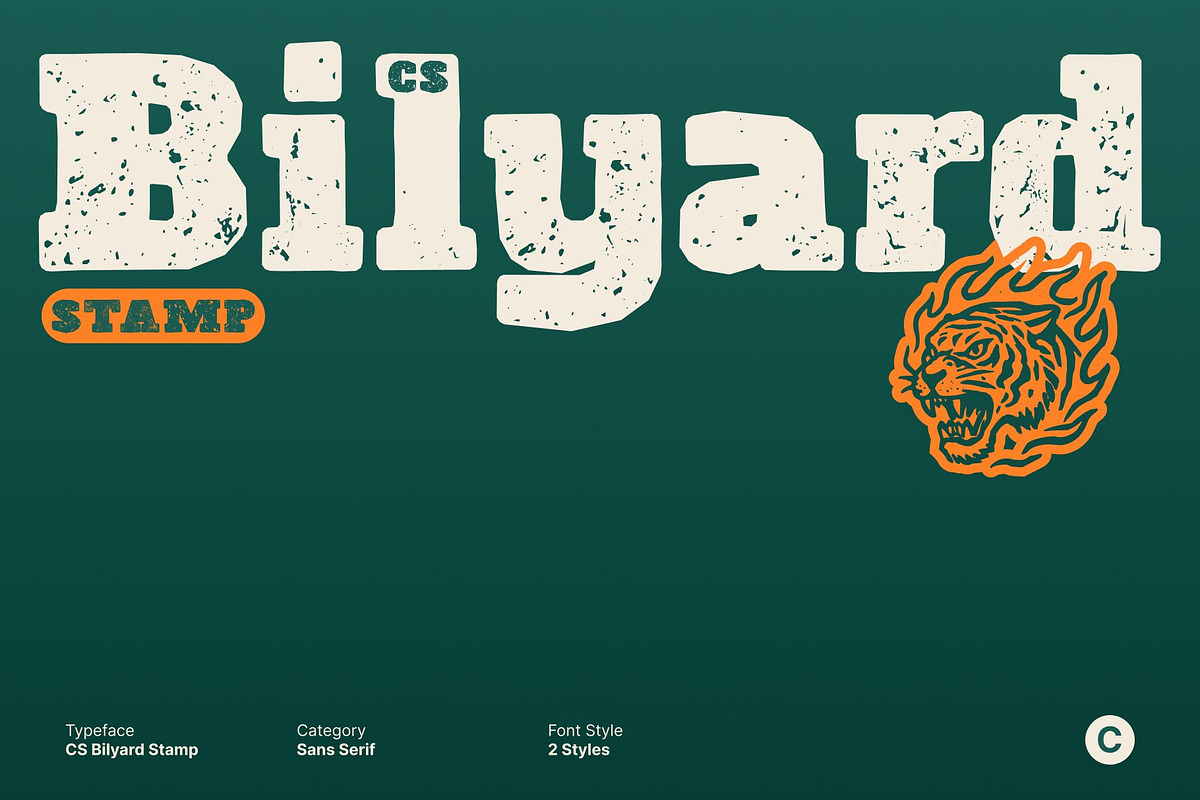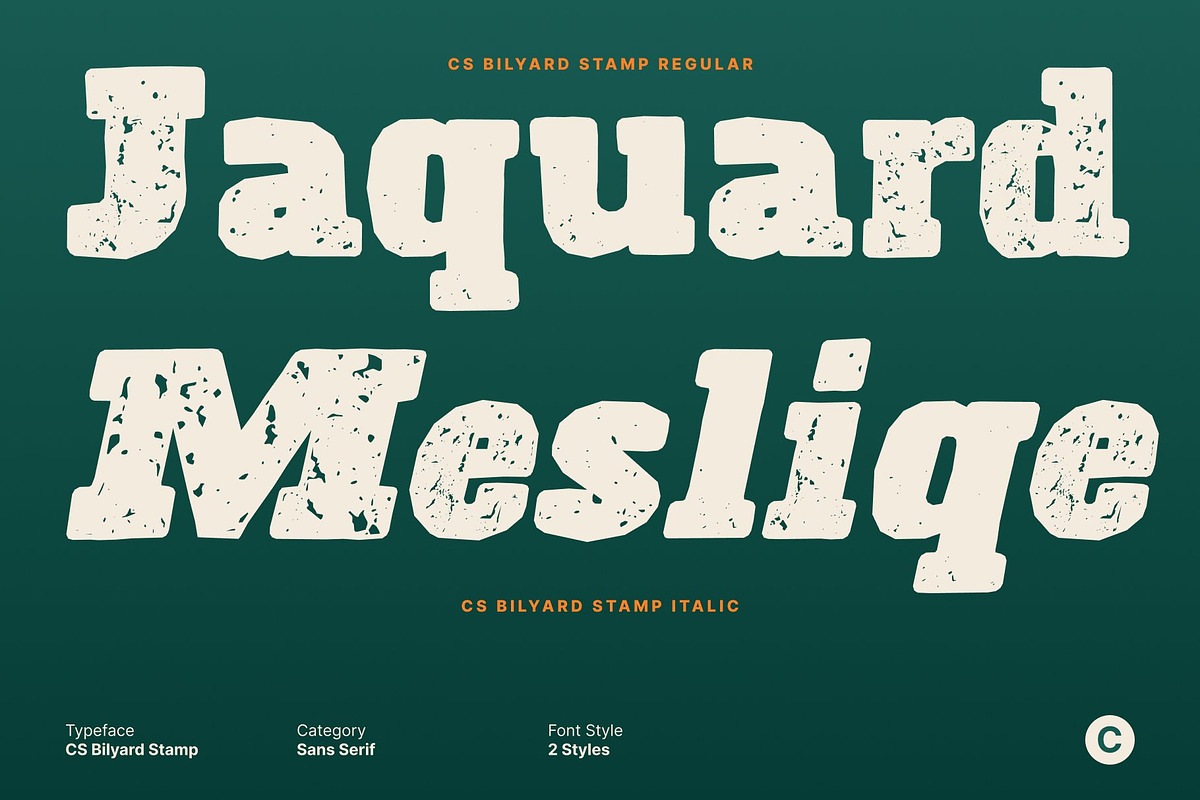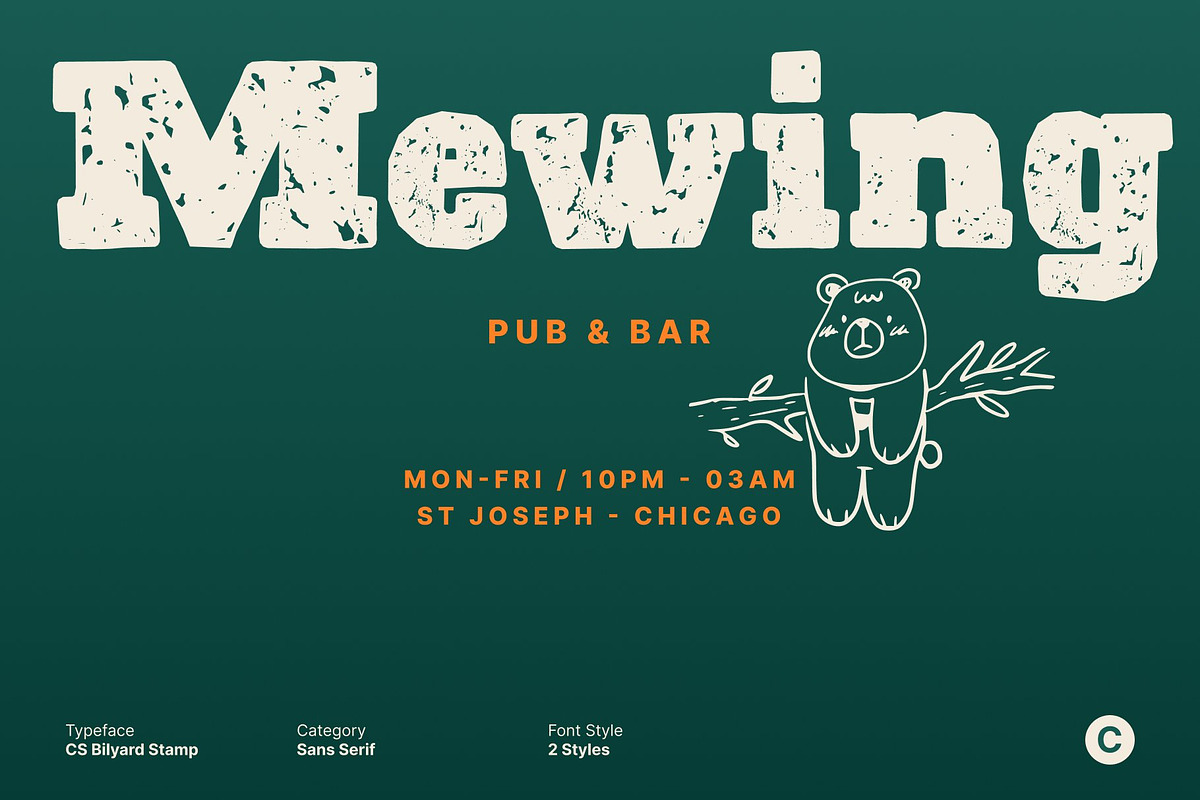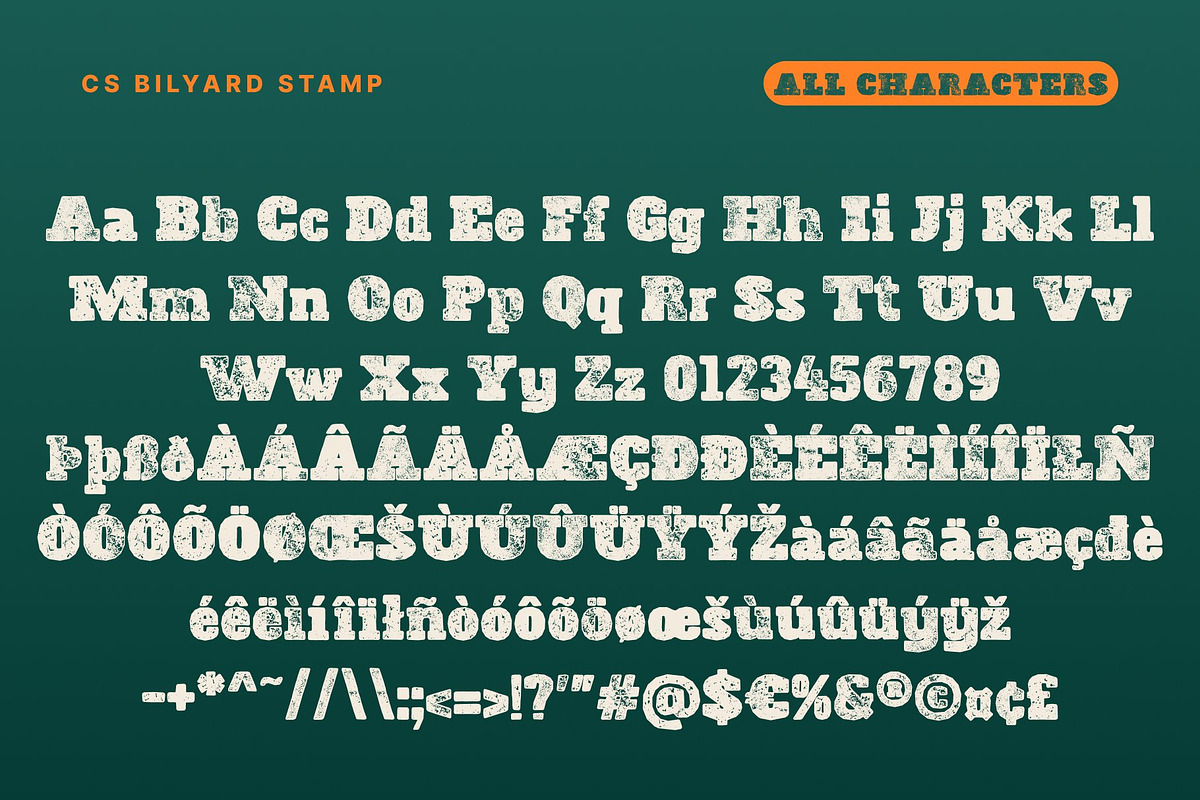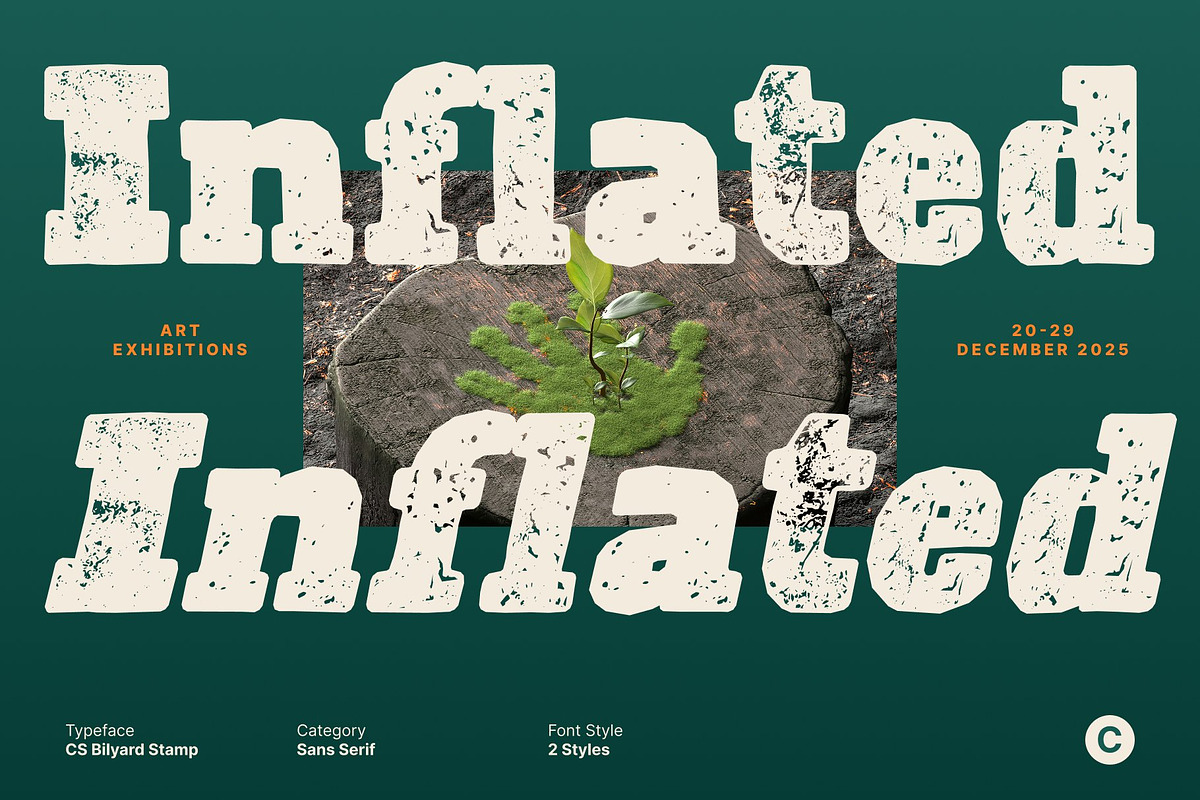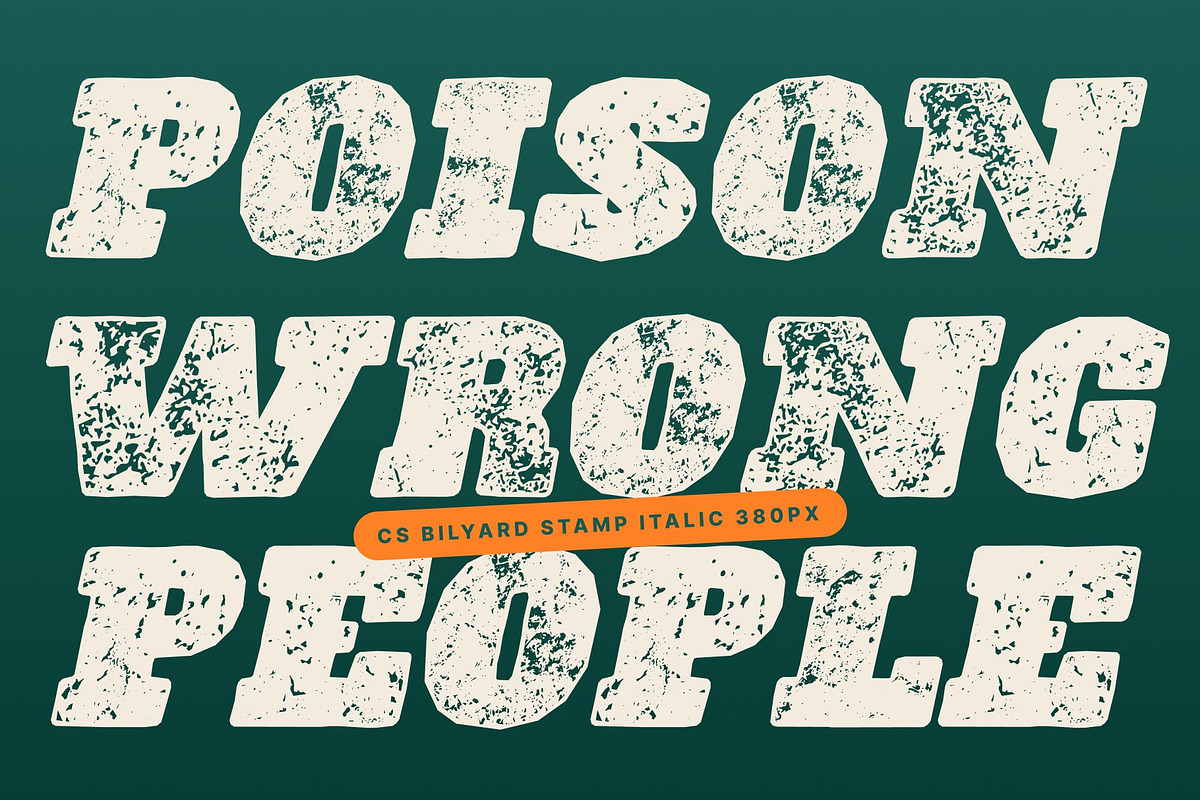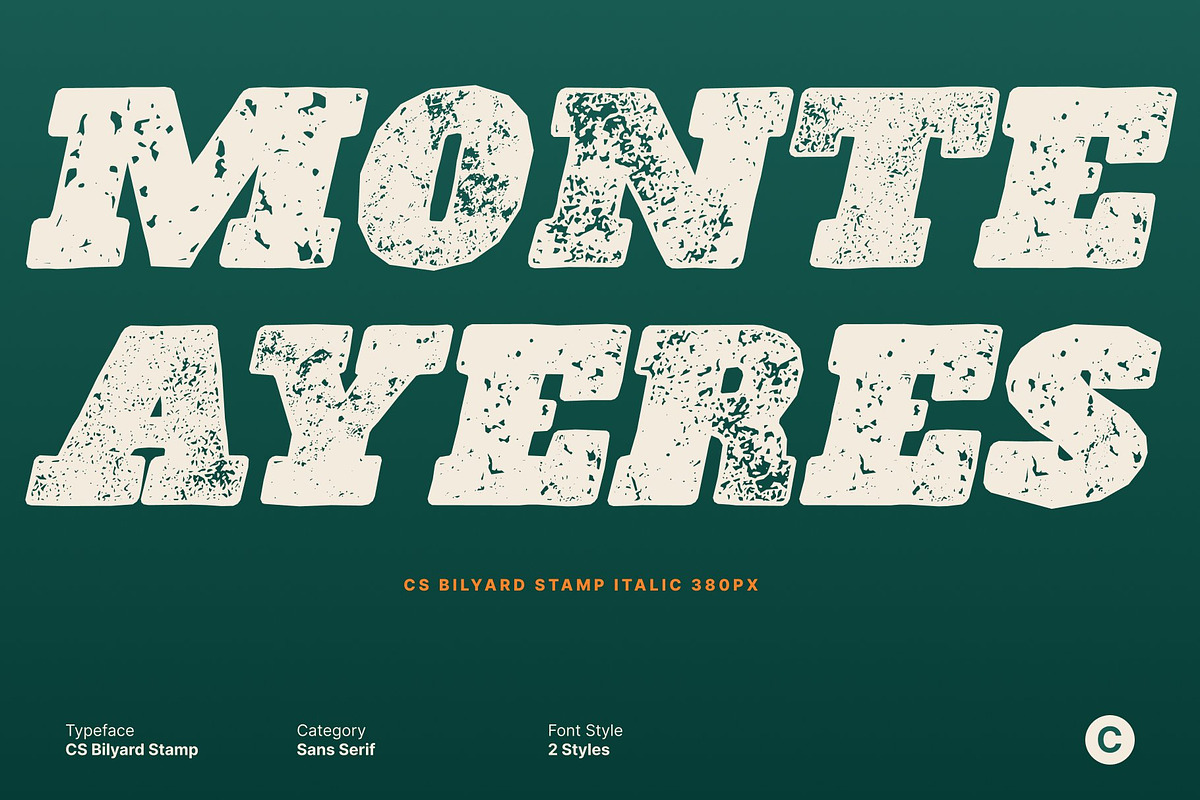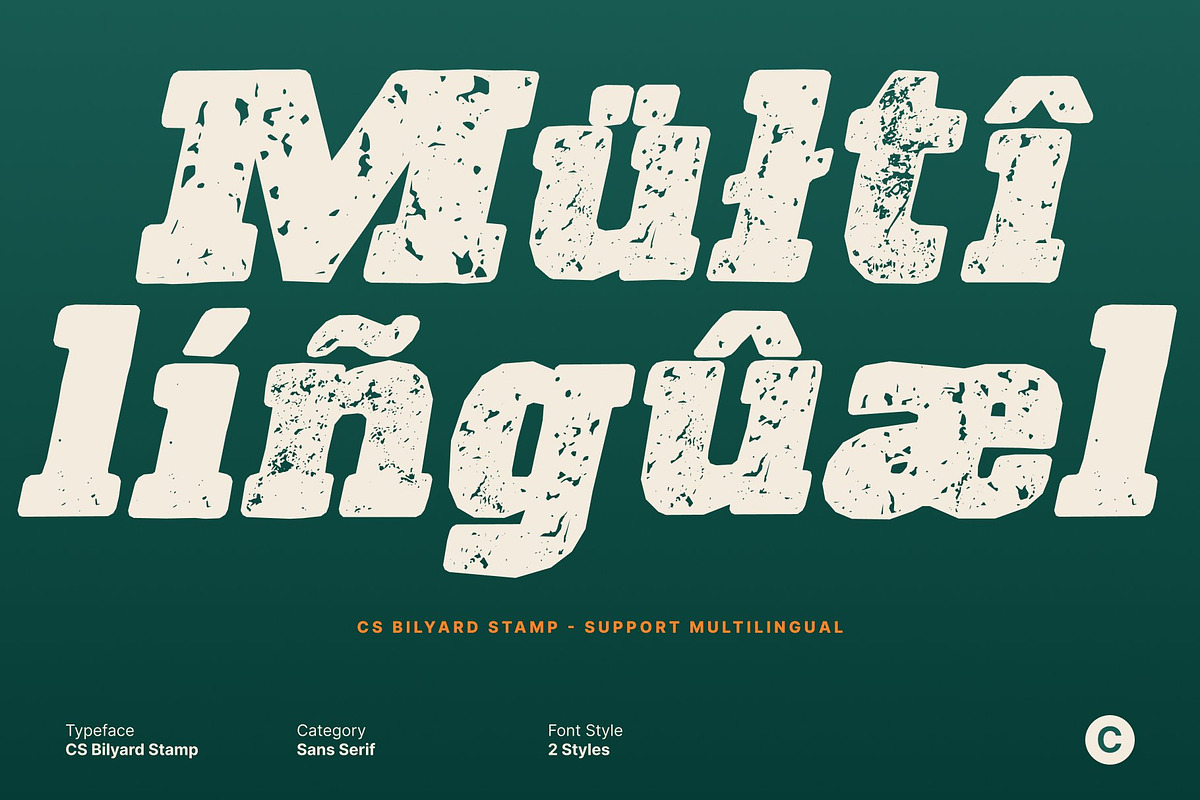
CS Bilyard Stamp
CS Bilyard Stamp – Slab Serif Font with Retro Strength
Bold Slab Serif with Vintage Stamped Influence This is a robust slab serif typeface inspired by classic retro aesthetics and traditional print design. Its sturdy letterforms and distinctive slab serifs convey confidence and heritage. Enhanced with a stamp effect, the font gains textured surfaces and subtle wear, evoking the look of old posters, labels, and vintage signage while maintaining a clean, modern edge.
Strong Structure with Textured Character Each letter is carefully constructed with wide proportions and solid geometry that project authority and reliability. The stamped texture softens the bold forms with organic imperfections, adding depth and personality while ensuring strong visibility and impact across layouts.
Perfect for Branding and Display Designs Designed to shine in large-scale applications, this font excels in posters, packaging, branding systems, signage, and editorial headlines. Its bold structure combined with a retro stamped finish makes it ideal for brands seeking to communicate trust, authenticity, and timeless strength.
Versatile for Modern Creativity with Retro Soul Rooted in classic typographic traditions yet executed with contemporary clarity, this font adapts seamlessly to both nostalgic campaigns and modern branding projects. This font proves that vintage inspiration, enhanced by a textured stamp effect, can drive powerful and relevant modern design.
CS Bilyard Stamp Regular
CS Bilyard Stamp Italic